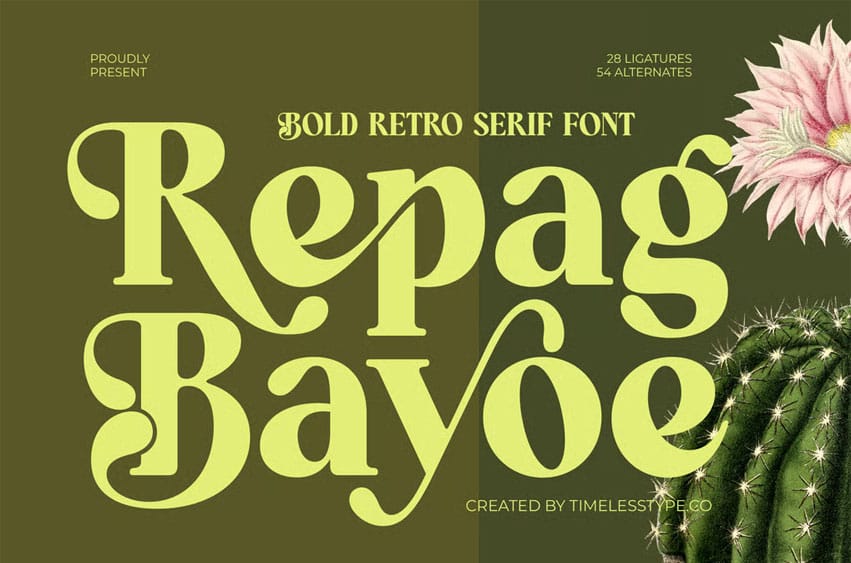
Repag Bayoe Font is a bold retro serif font that combines classic charm with modern artistic curves. With 28 ligatures and 54 alternates, it offers flexibility and creative expression for unique typography designs.
Perfect for branding, packaging, editorial projects, posters, and social media graphics, Repag Bayoe delivers a vintage yet contemporary aesthetic — ideal for projects that seek elegance with a playful retro touch.